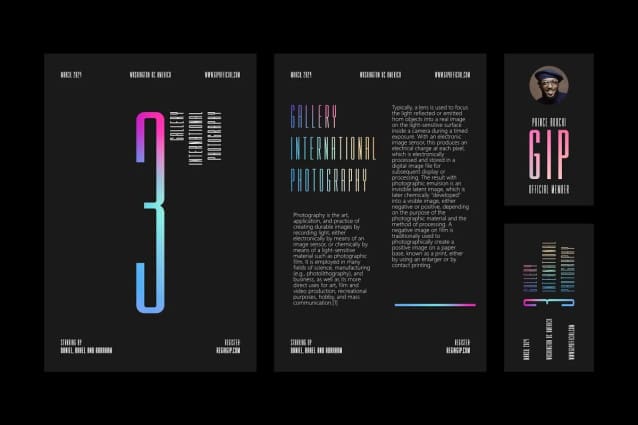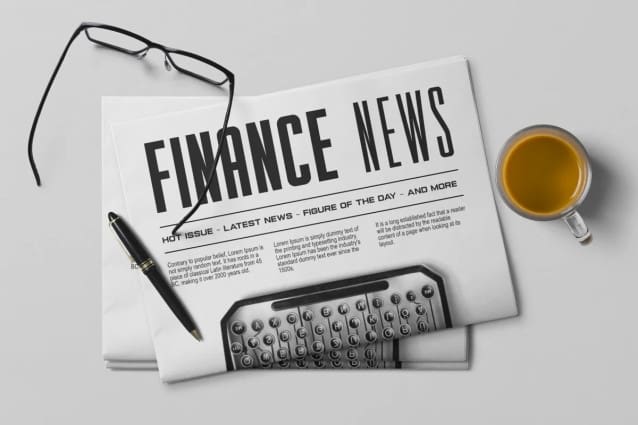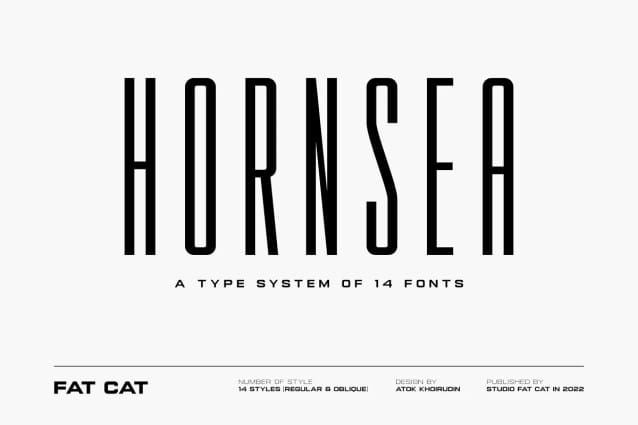
Hornsea FC Font Family
Hornsea FC Font Family, is a bold and heavy display condensed font family. The font is suitable for any branding project like logo, t-shirt printing, sporting design, and many more. It will look assertive in a wide range of contexts.